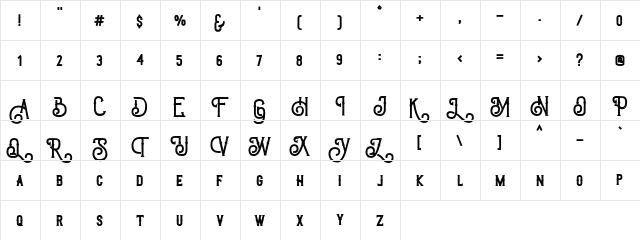
Triumph wheels rough Regular
| Foundry | Suandana I Pande Made |
| Designer | Suandana I Pande Made |
Design Context for Triumph wheels rough Typeface
Triumph wheels rough embraces imperfection — its rough, textured character adds raw authenticity to designs that want to feel lived-in and unconventional.
A strong fit for alternative music projects, graffiti-adjacent design, and anything that deliberately resists polish.
Pro Tip: Use Triumph wheels rough at larger sizes where the texture and irregularity of each letterform can be clearly seen — it loses its character at small sizes.